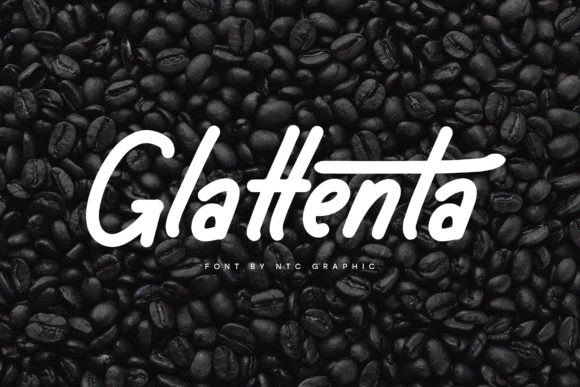
Introducing Glattenta: The Epitome of Minimalist Handwritten Fonts
In the realm of typography, fonts play a pivotal role in shaping the visual identity of any artistic presentation. Among the myriad of fonts available, Glattenta stands out as a beacon of simplicity and elegance. This minimalist handwritten font has been meticulously crafted to carve its unique identity through singularly distinct font characters, thereby enhancing the visual charm of any artistic presentation and transforming it into a captivating spectacle.
Key Features of Glattenta Font
- Minimalist Design: Glattenta boasts a minimalist design that eschews unnecessary embellishments, focusing instead on clean lines and simple shapes.
- Handwritten Elegance: Despite its minimalist approach, Glattenta exudes a sense of handwritten elegance, making it perfect for projects that require a personal touch.
- Unique Character Set: Each character in Glattenta has been uniquely designed to ensure that the font stands out from more generic typefaces.
- Versatility: Glattenta’s simplicity and elegance make it incredibly versatile, suitable for a wide range of applications from branding and advertising to packaging and digital media.
The Making of Glattenta: A Journey of Refinement
The creation of Glattenta is a story of passion, dedication, and the invaluable feedback from its users. The journey began with a vision to create a font that could redefine the boundaries of minimalist design while maintaining an air of elegance and sophistication. As Glattenta evolved, it became clear that this font was not just about aesthetics; it was about creating a tool that artists, designers, and marketers could rely on to convey their message with clarity and style.
Throughout its development, Glattenta has been shaped by the support and feedback of its growing community. Each download, each visit, and every piece of feedback has played a crucial role in refining the font, ensuring that it meets the high standards of the design community. This collaborative approach has not only enhanced Glattenta’s aesthetic appeal but also its utility, making it a font that is both beautiful and functional.
The Impact of Glattenta on Visual Presentations
In today’s visually driven world, the choice of font can significantly impact the effectiveness of a presentation. Glattenta, with its minimalist yet elegant design, has the power to elevate any artistic presentation, turning it into a captivating spectacle. Its unique characters and clean lines ensure that the message is conveyed with clarity, while its elegance adds a touch of sophistication.
Whether it’s used in branding to establish a company’s visual identity, in advertising to grab attention, or in digital media to enhance user experience, Glattenta has the versatility to make a significant impact. Its ability to stand out in a crowded marketplace makes it an invaluable tool for designers and marketers looking to create memorable and impactful visual presentations.
The Future of Glattenta: Continuous Evolution
The story of Glattenta is far from over. With a commitment to continual evolution, future updates will see the font refining its aesthetics and utility promise. The development roadmap for Glattenta includes plans to expand its character set, enhance its versatility, and ensure that it remains at the forefront of minimalist design.
This commitment to ongoing improvement is a testament to the creators’ dedication to the font and its community. By engaging with users and incorporating their feedback, Glattenta will continue to grow and adapt, ensuring that it remains a preferred choice for designers and artists seeking a minimalist yet elegant font.
Glattenta is more than just a font; it’s a statement of simplicity and elegance in the digital age. Its minimalist design, coupled with its handwritten charm, makes it a unique addition to any design project. As Glattenta continues to evolve, it invites designers, artists, and marketers to be part of its journey, using it to create visually stunning presentations that captivate and inspire.
With its roots firmly planted in minimalist design and its sights set on the future, Glattenta is poised to leave a lasting impact on the world of typography. Its story is a reminder that even the simplest designs can have a profound impact when crafted with passion, precision, and a commitment to excellence.